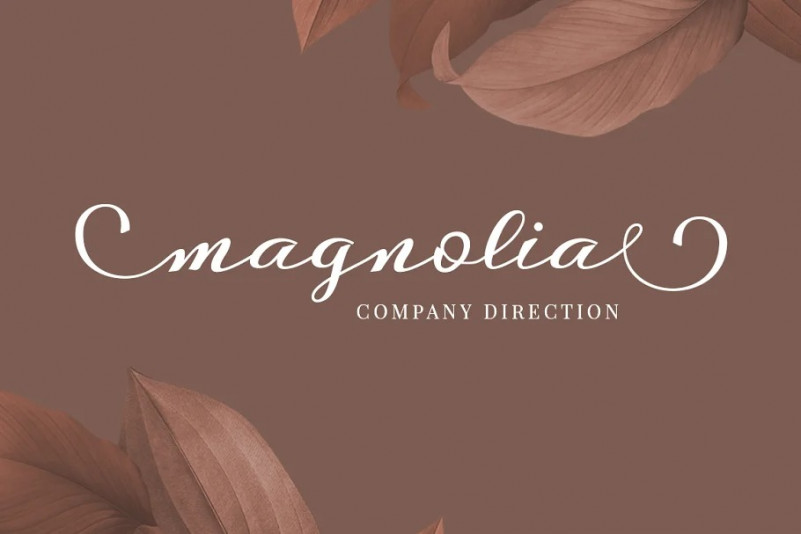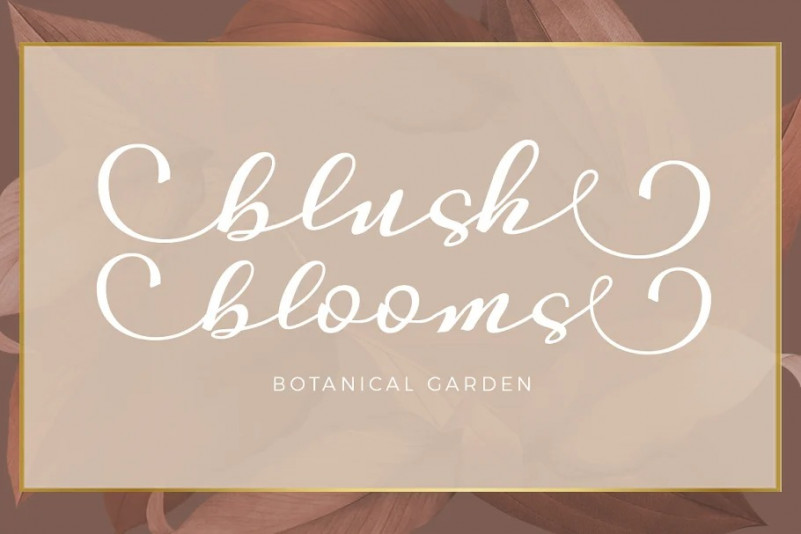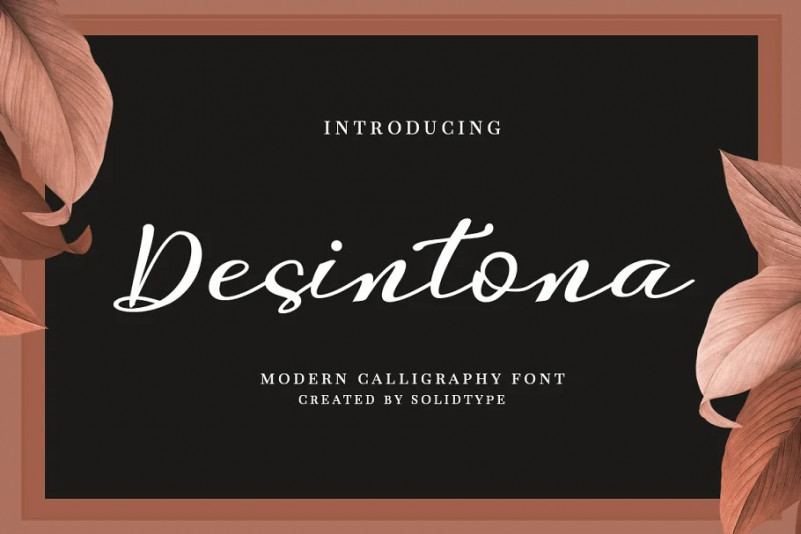
Desintona Font
Desintona Script Font – A contemporary calligraphy, with a vintage feel, style calligraphy with moving baseline and elegant touch. That makes the font look fabulous! Can be used for various purposes.such as headings, signature, logos, wedding invitation, t-shirt, letterhead, signage, lable, news, posters, badges etc.